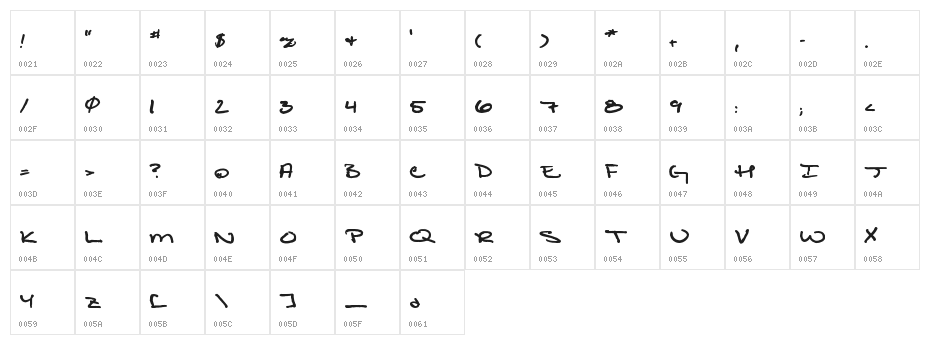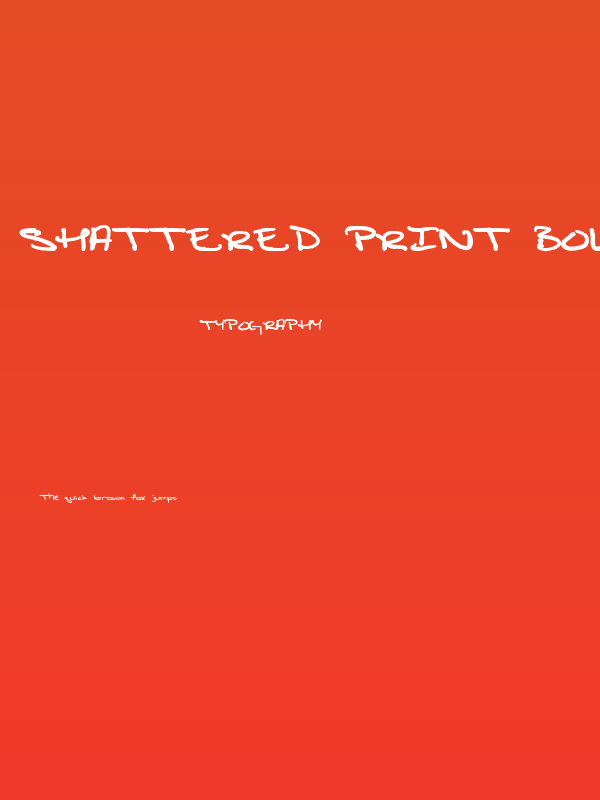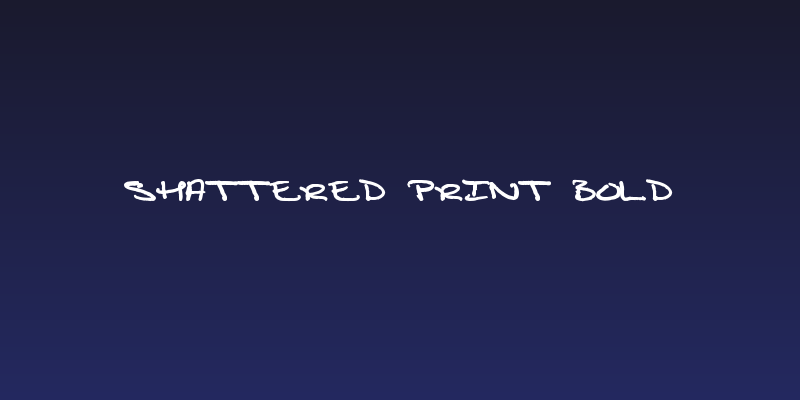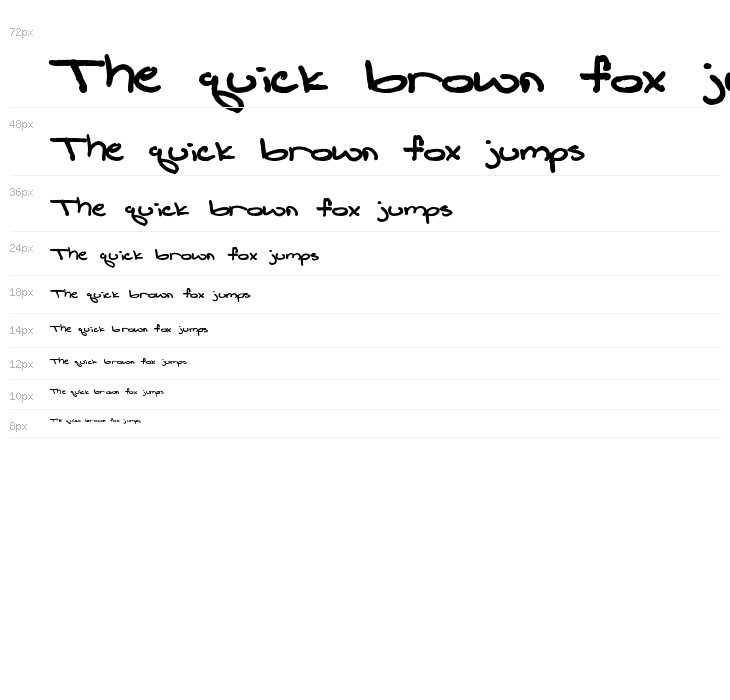
Shattered Print Bold Font
Shattered Print Bold Description
This font features a bold, handwritten style with a rough, textured appearance that mimics the look of a marker or brush pen. The characters are slightly irregular, giving it a casual and informal feel. The uppercase and lowercase letters are well-balanced, with a consistent stroke width that adds to its boldness. The numbers and special characters maintain the same hand-drawn aesthetic, making the font versatile for various creative projects. Its unique style is eye-catching and adds a personal touch to any design.
| Overall Style | Casual, Artistic |
| Proposed Projects | Ideal for posters, greeting cards, logos, and social media graphics where a personal, artistic touch is desired. |